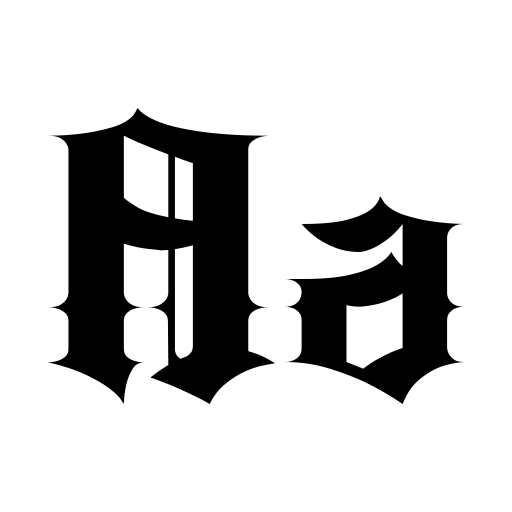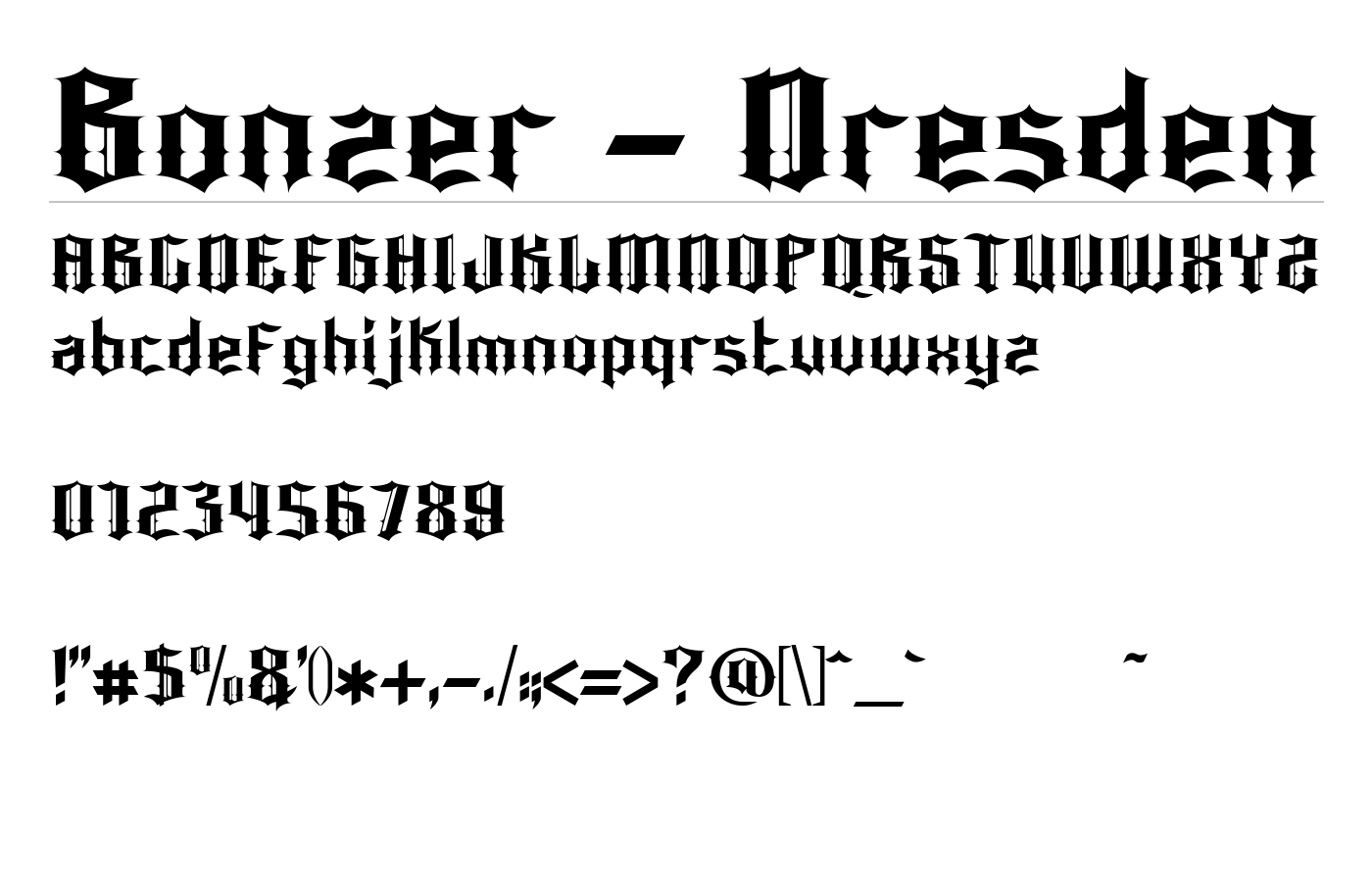
Bonzer - Dresden is a bold, condensed blackletter font with sharp, angular strokes and high contrast that evoke a strong Gothic aesthetic. Its intricate, medieval-inspired letterforms create a dramatic and authoritative feel, making it perfect for vintage branding, posters, and designs seeking a historic or rebellious edge. This distinctive font works well in display settings where its elaborate style can really stand out and make a memorable impression.
Bonzer - Dresden Font
About Bonzer - Dresden Font